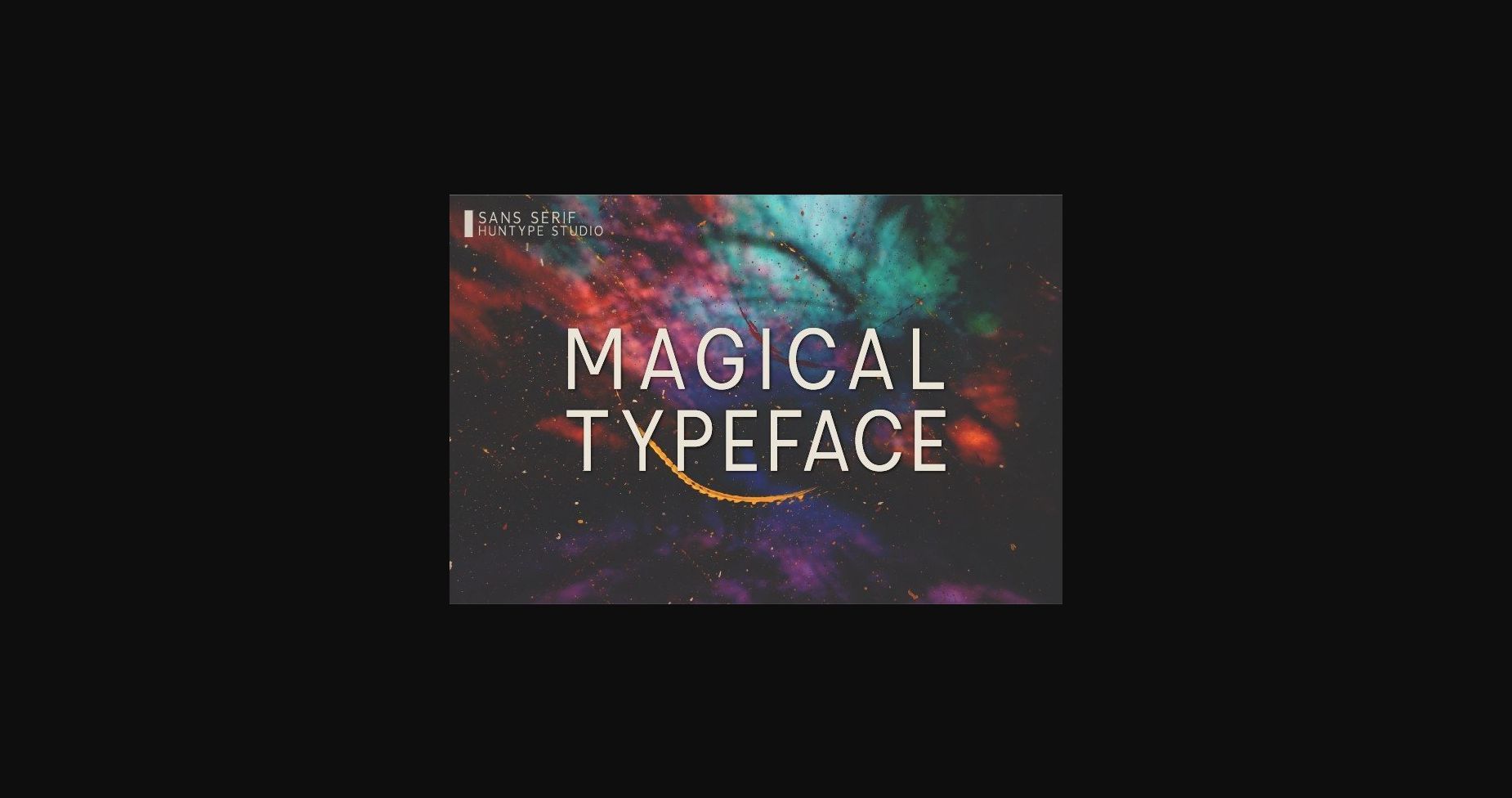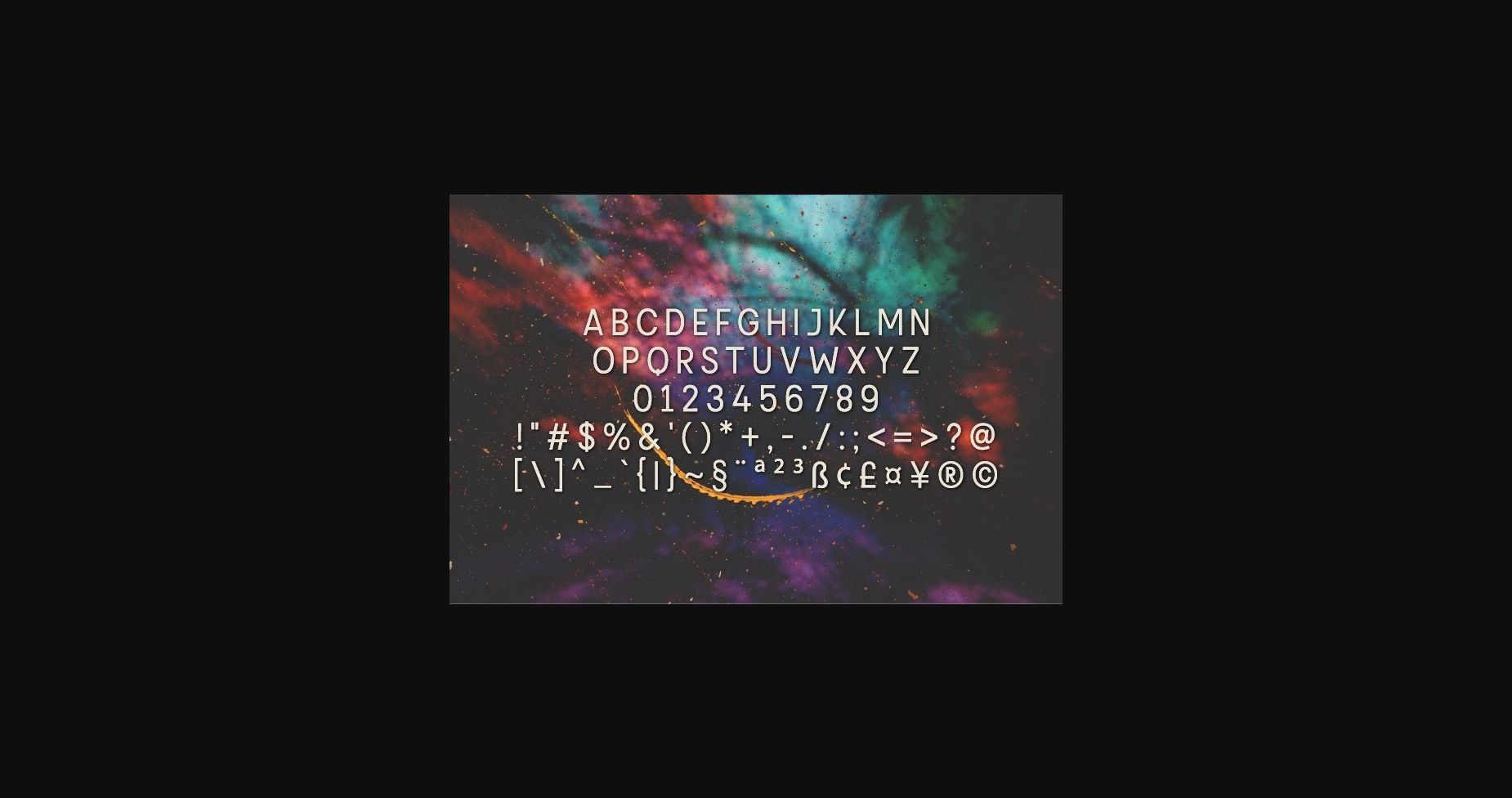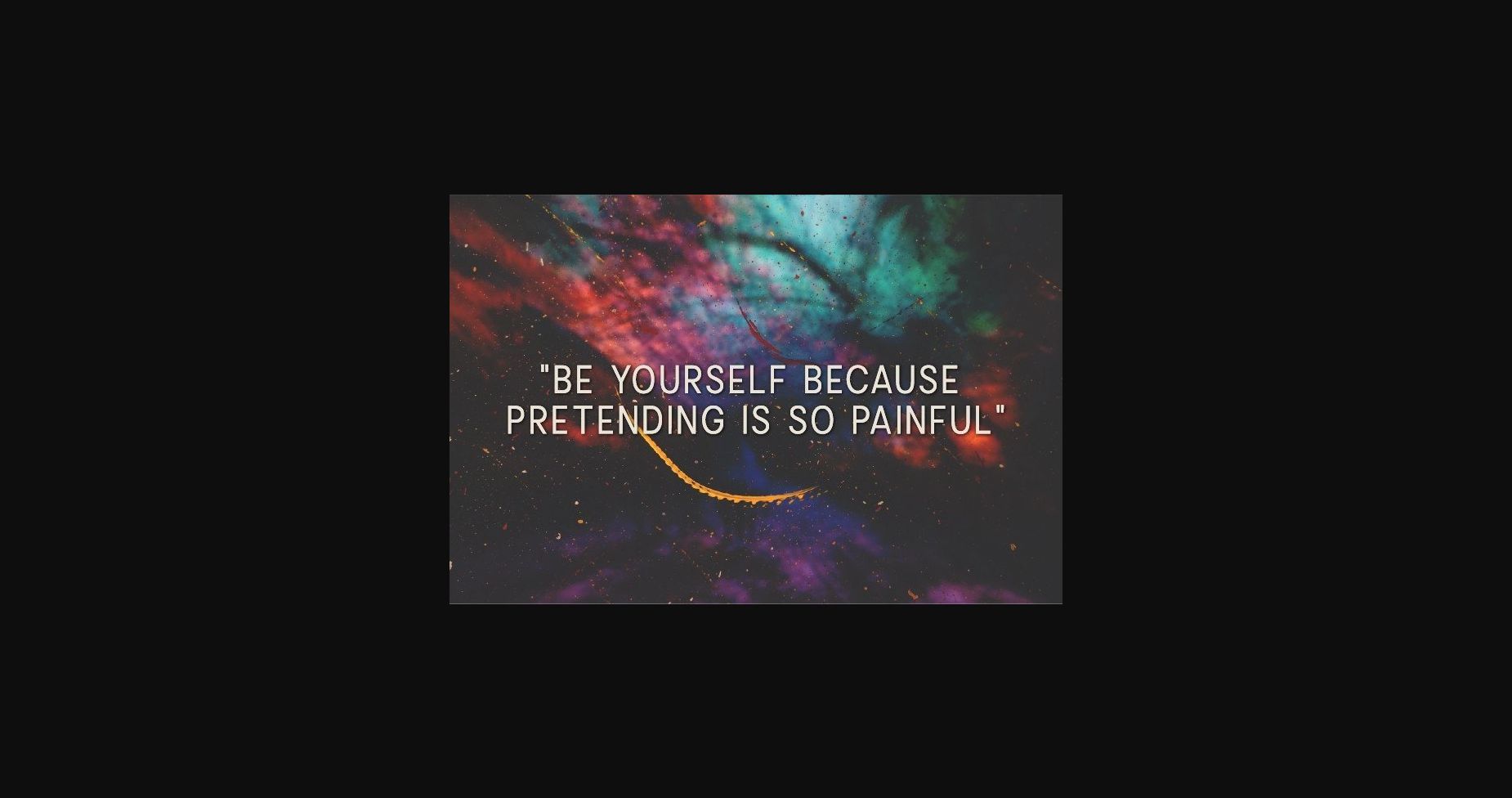
About Magical Typeface Font
Magical Typeface is a clean and neat sans serif font. No matter the topic, this font will be an incredible asset to your fonts’ library, as it has the potential to elevate any creation.